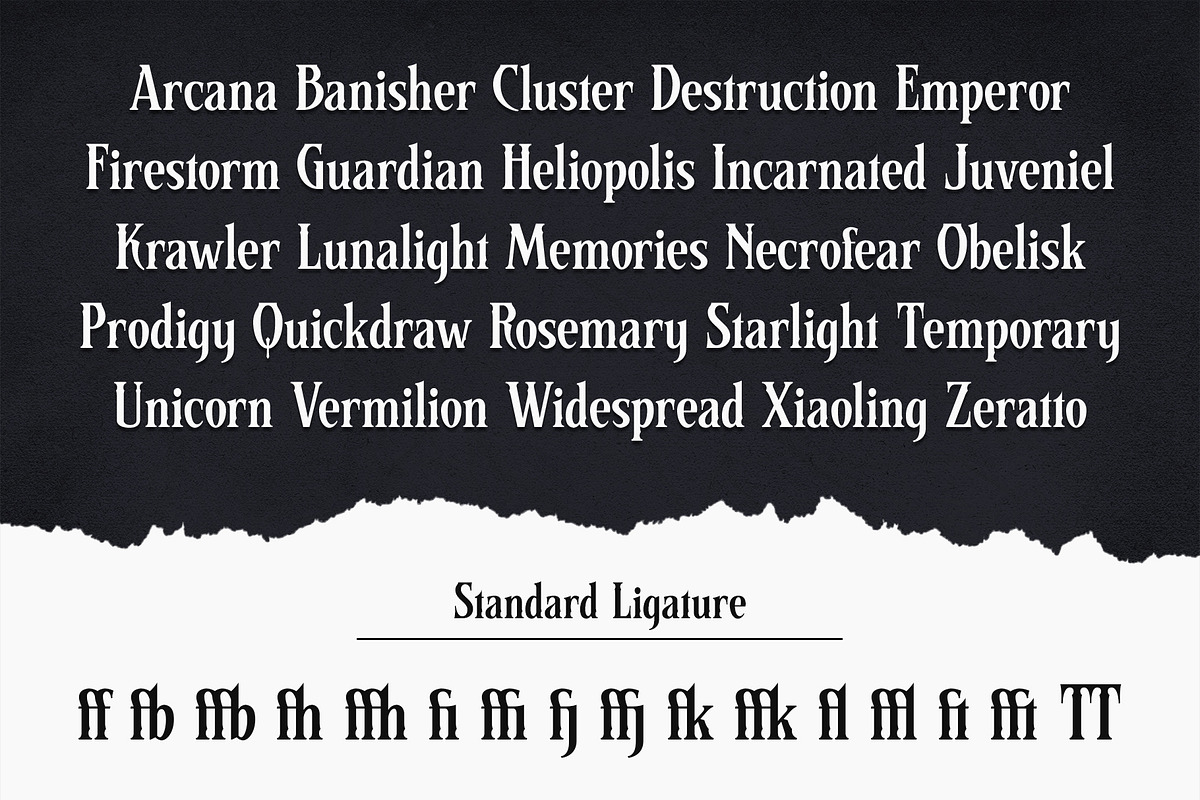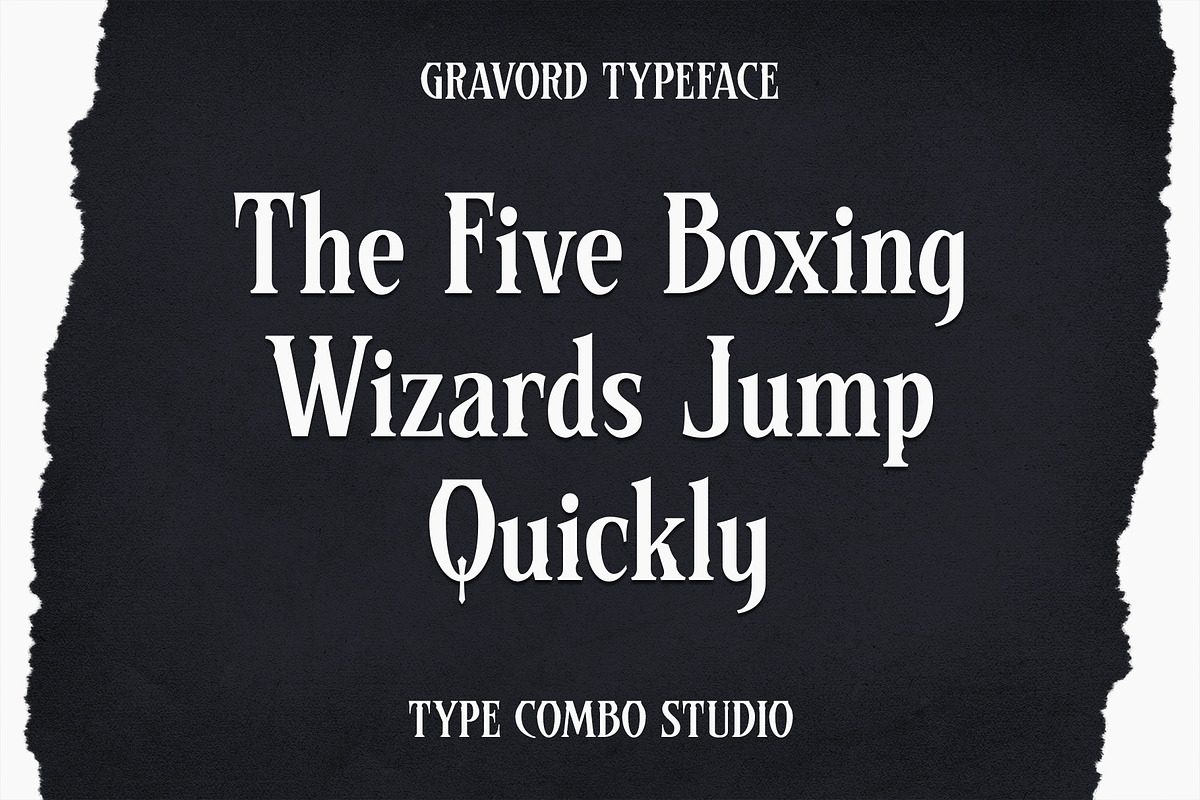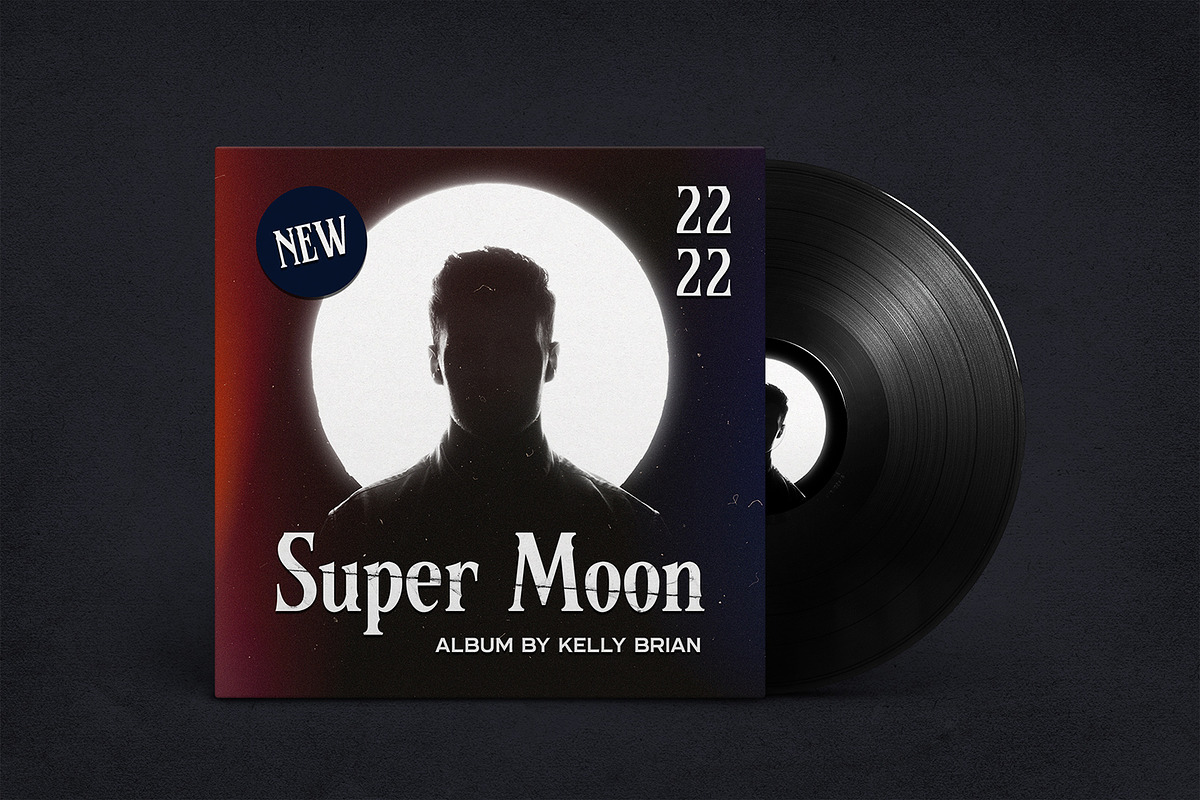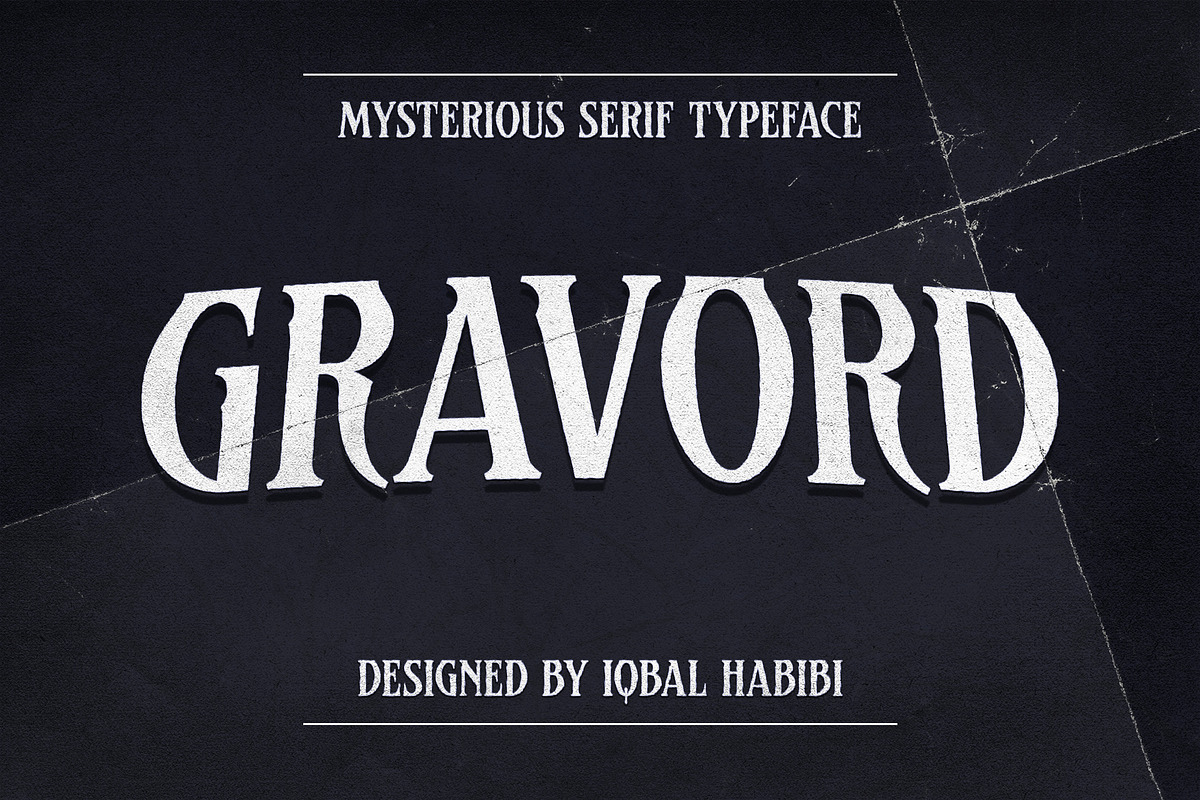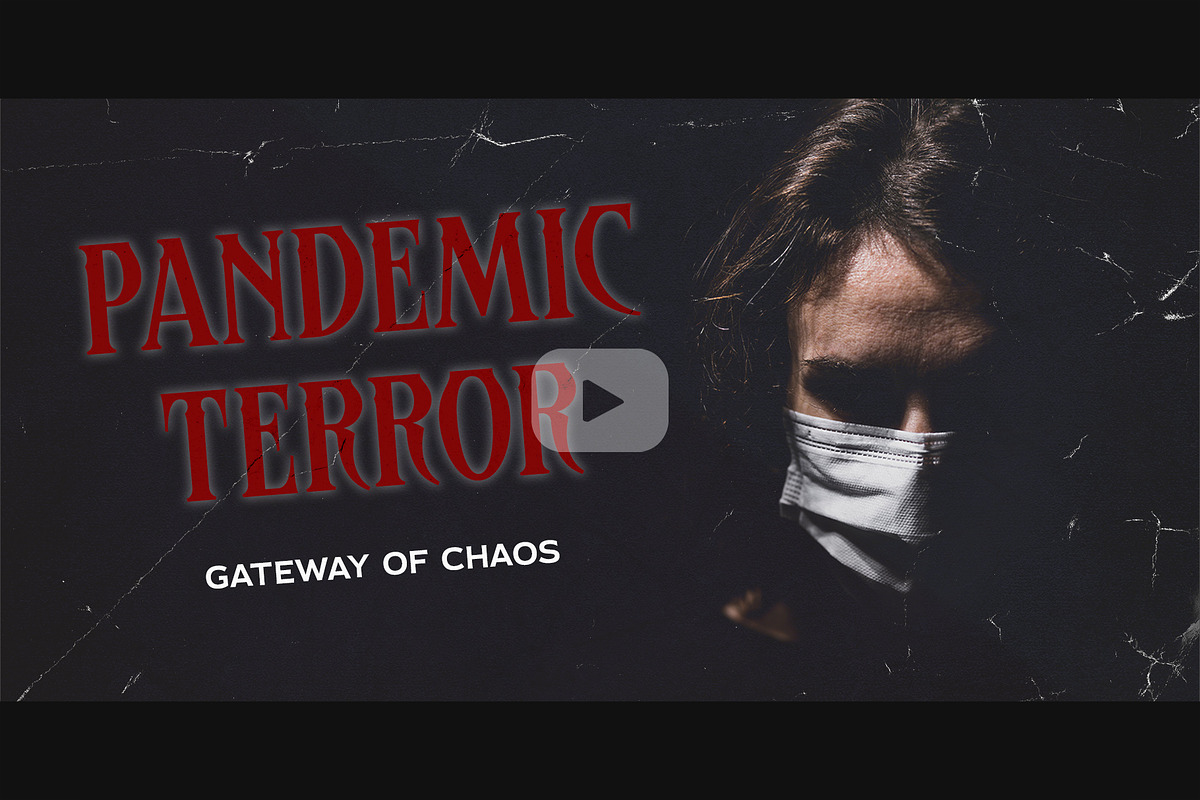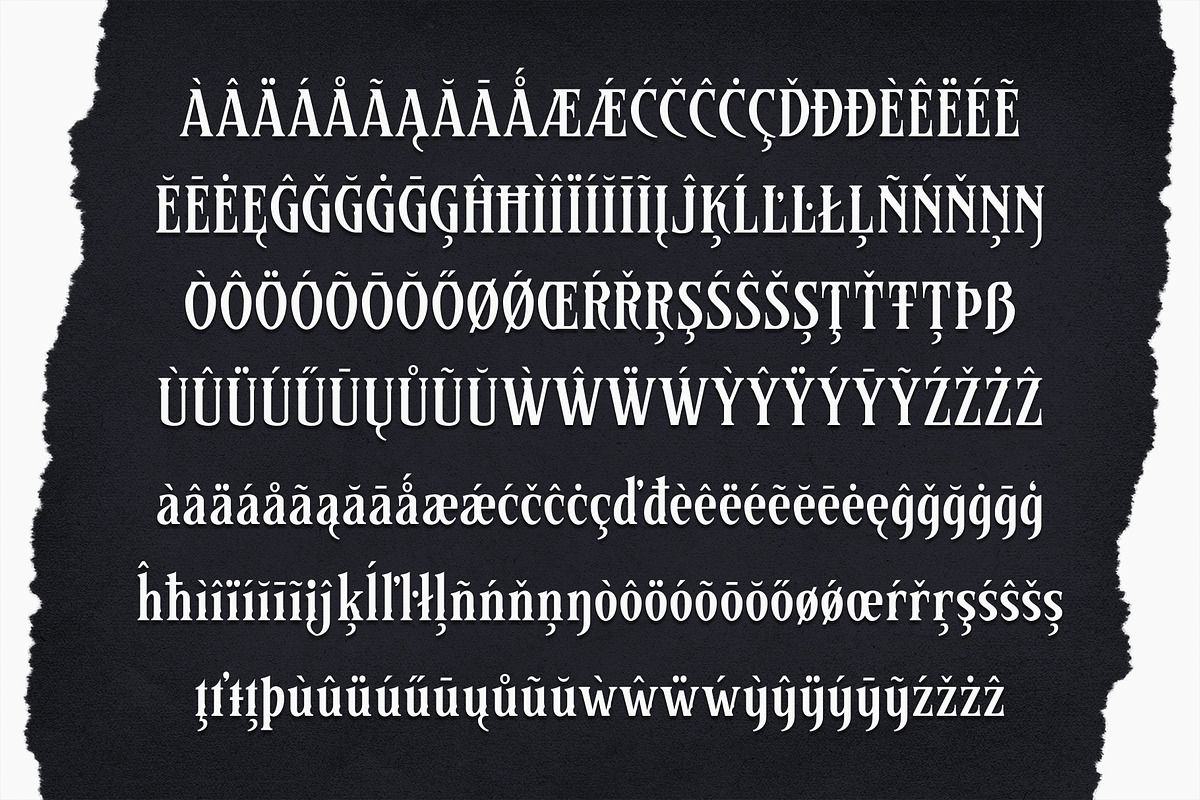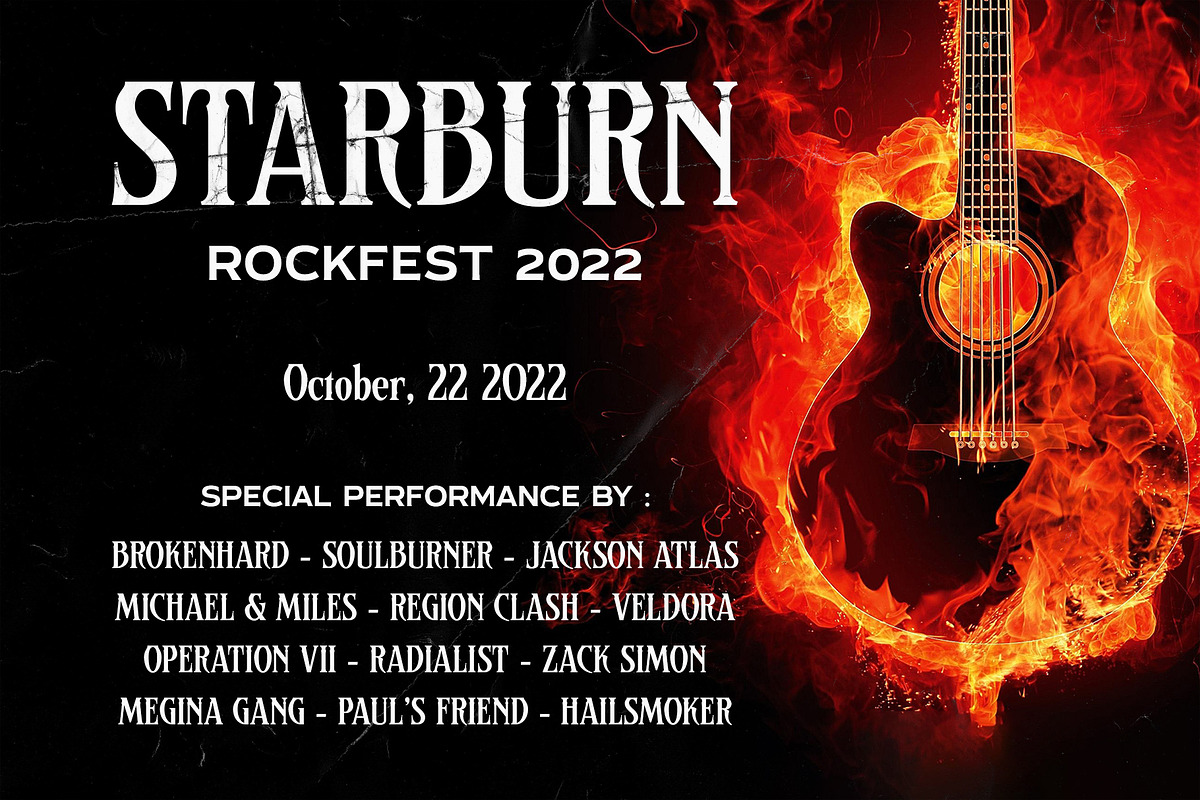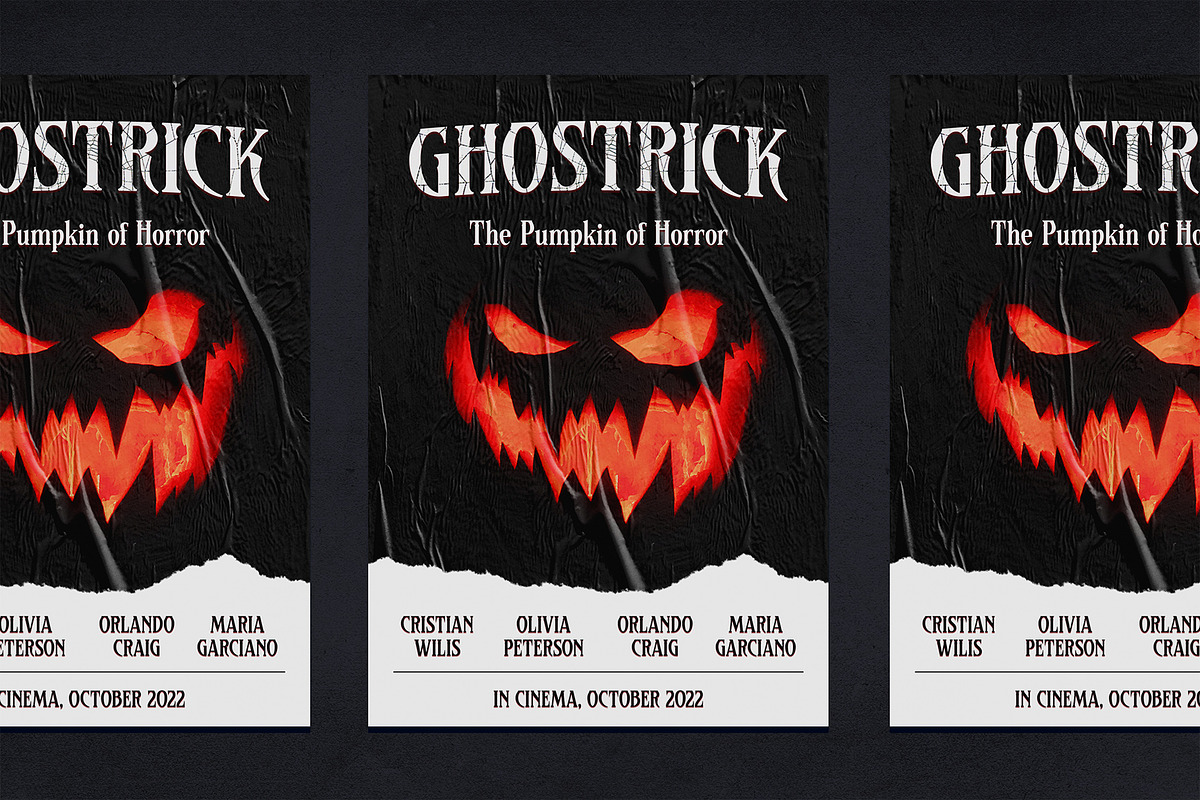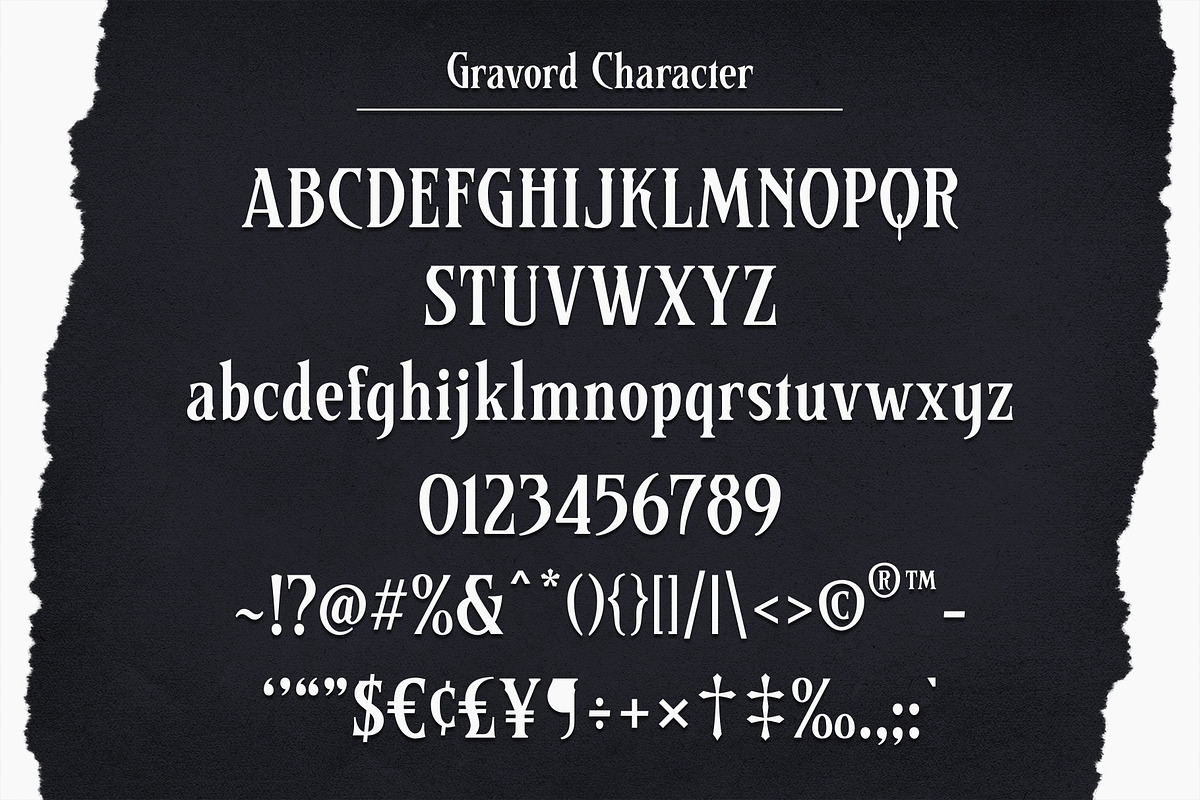
Gravord - Mysterious Serif
Gravord is a sharp-looking serif display typeface with a little bit of gothic style that gives a mysterious character and horrific traits. Gravord has 338 glyphs and supports Latin Extended Language. Gravord is perfectly suited for Horror Movie and Rock Music Posters, Rock and Metal Band Merch, Packaging Designs, Titles, Headlines, and other graphic design projects related to Halloween themes.